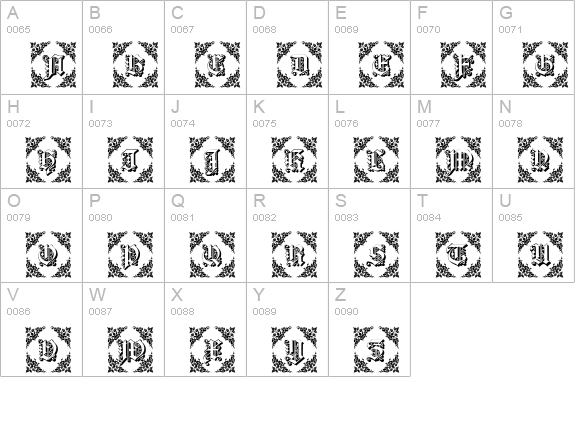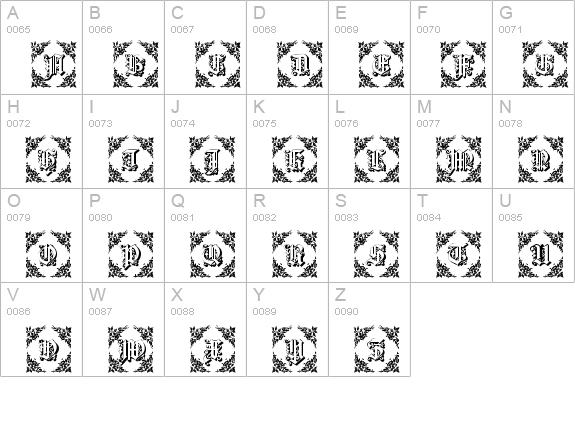
Dearest Friend lite Font Details
Dearest Friend lite font is a charming and elegant typeface that exudes warmth and friendliness. Its delicate and graceful letterforms make it perfect for adding a personal touch to your projects. This font is ideal for a variety of creative endeavors, from invitations and greeting cards to branding and social media graphics. Best of all, Dearest Friend lite font is completely free to download! Simply visit FontsMarket.com to access this beautiful typeface and enhance your designs with its timeless appeal. Whether you're a designer looking to add a touch of sophistication to your work or an individual wanting to personalize your projects, Dearest Friend lite font is the perfect choice. Download it today and let your creativity shine!